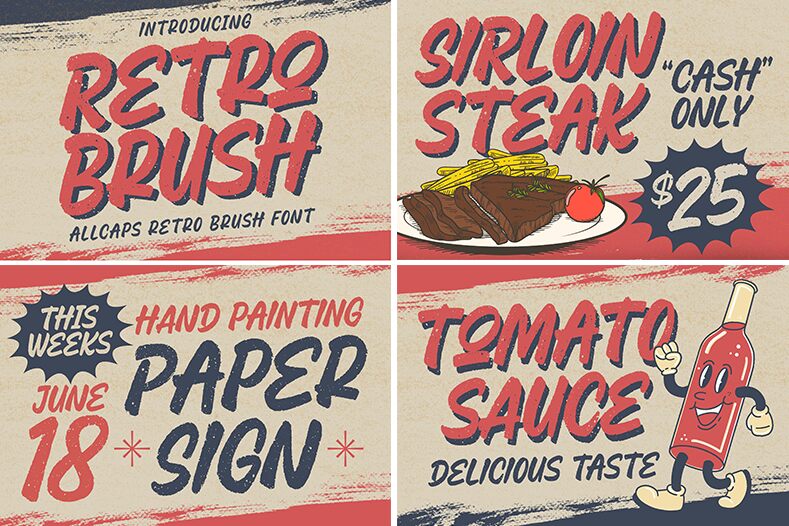
Retro Brush font by Blankids is a free brush font with a dynamic, energetic appearance. Drawing inspiration from retro typography, this casual typeface is both nostalgic and lively. It mimics the imperfections of hand-painted typography, lending an expressive aesthetic to your message. Retro Brush is named after its original purpose, but the font is well suited for a variety of projects with its dynamic and creative appearance.
Use it in eye-catching designs, such as posters, album covers, headlines, cards, packaging, product design, social media graphics, book covers, advertising, or merchandise. It can also work well for branding or website design.